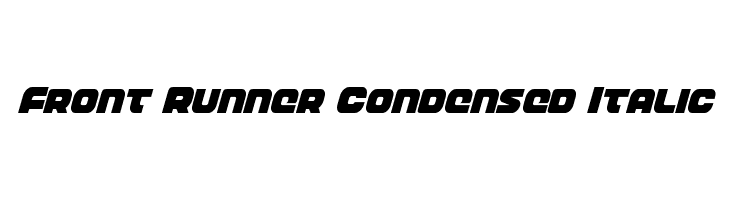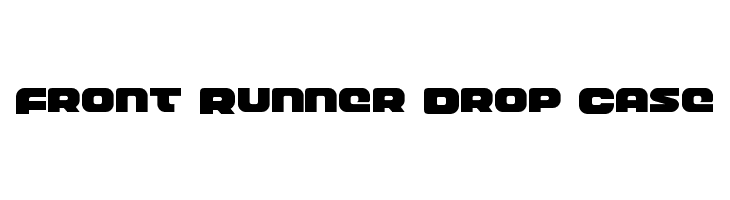
A bold, 3D italic font with outlined characters and a futuristic style.
A bold, geometric, and condensed font with a modern and assertive style.
A bold, condensed, and italicized font with a dynamic and modern style.
A bold, geometric font with block-like characters and a modern aesthetic.
A bold, italic font with high contrast and a dynamic, modern style.
A bold, expanded font with a modern, geometric style and consistent stroke weight.
A bold, expanded, and italic font with a modern and dynamic style.
A bold, futuristic font with a halftone effect and geometric structure.
A bold, italicized font with a halftone effect, ideal for dynamic and modern designs.
A bold, italic font with a dynamic and modern style.